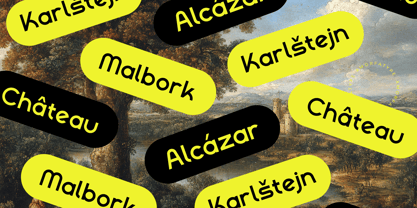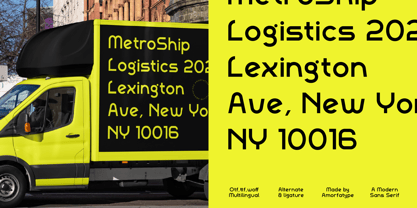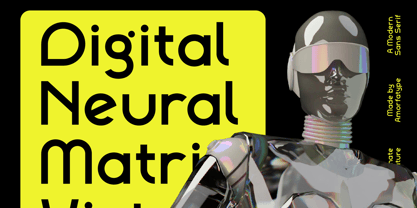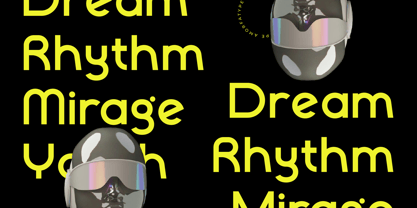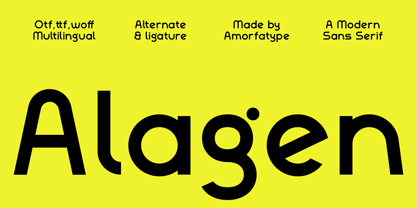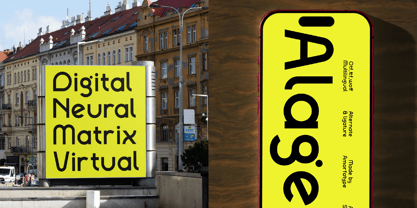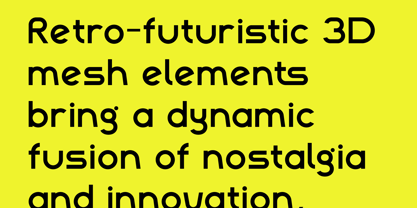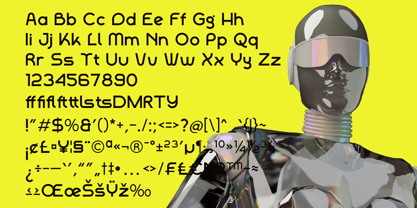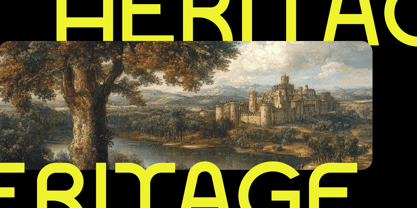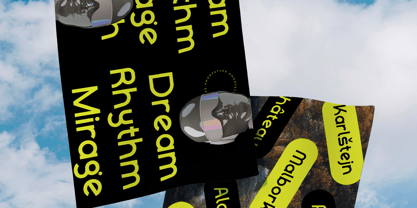
Alagen
by Amorfa Type
The Alagen Font Family was designed by Shiddiq Roihan and published by Amorfa Type. Alagen contains 2 styles and family package options. More about this family
Alagen – A Modern Sans Serif Font by Amorfatype
Alagen is a clean and contemporary sans serif typeface designed to bring a sense of modern simplicity and professional clarity to your design work. With its precise geometry, balanced letterforms, and smooth curves, Alagen is ideal for projects that require a sleek, minimalistic aesthetic without sacrificing legibility or style.
Perfect for branding, editorial design, website interfaces, logos, and corporate materials, Alagen’s versatility shines across both print and digital media. Its clean appearance and consistent rhythm make it highly readable, while its modern elegance adds a polished finish to any layout. Whether used in bold headers or refined body text, Alagen adapts beautifully to your creative vision.